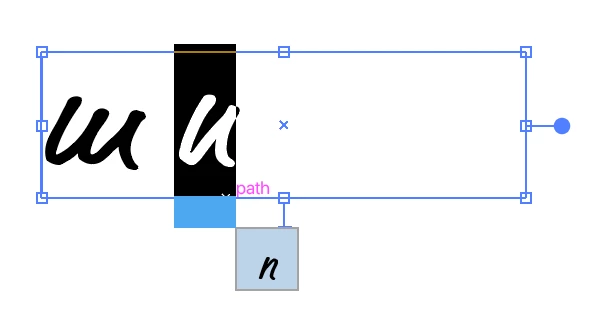
Alternative FF Market font (Market Pro) glyph variation
I require an alternate FF Market font (Market Pro) version with adjusted glyphs. Some characters appear inverted, and I need to utilize this font for web purposes without retaining the original layout of the files. The characters that I need to change are m, n and u.
I can easily change them within Illustrator, but it uses the original characters when I use other platforms/web. I thought I could save out another glyph version of this font but I don't seem to be coming right.